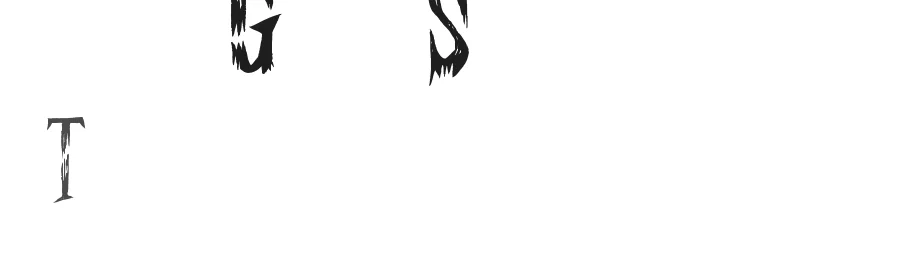
About Savage Garden Font
Savage Garden Specifications
| Designer | Putra Novembria Candra Kusuma |
Savage Garden ships with 1 OpenType feature you can switch on in apps that support them (Illustrator, InDesign, Affinity, Figma, CSS font-feature-settings).
Savage Garden Font is a decorative font that shines as a display or heading face. Pair it with a clean sans-serif or serif font for body text β the contrast creates a clear hierarchy while the two styles stay balanced and easy to read.
Savage Garden Font